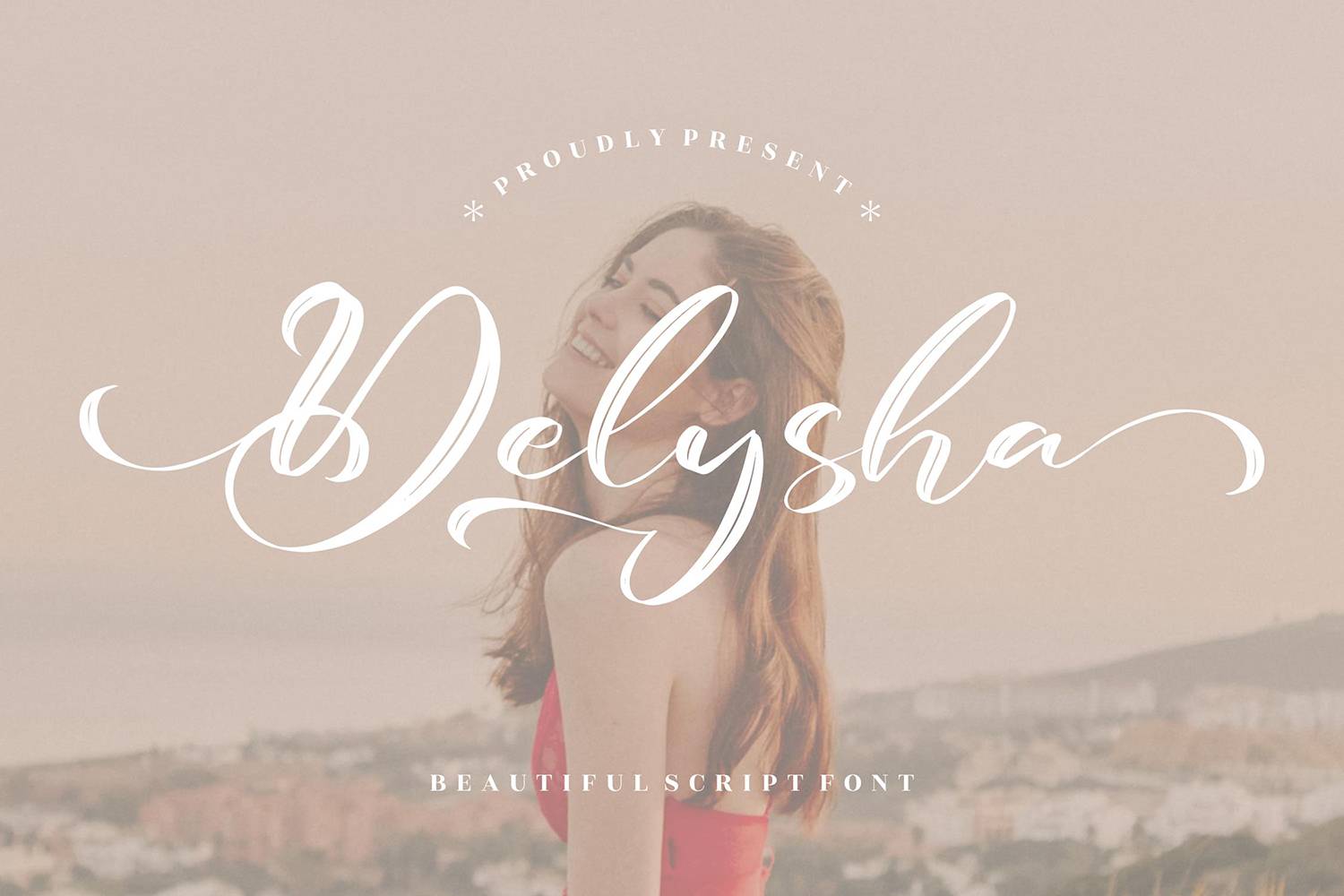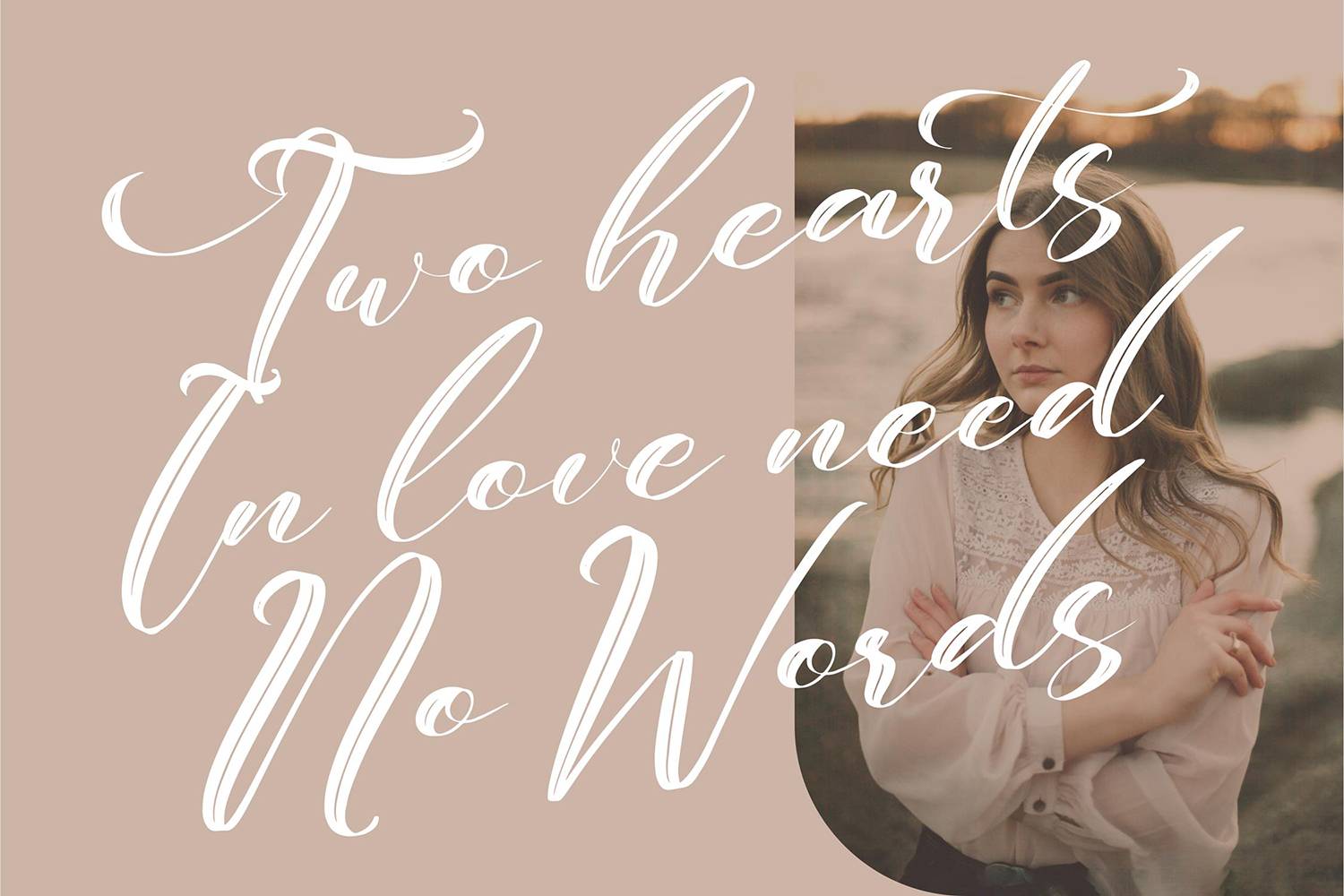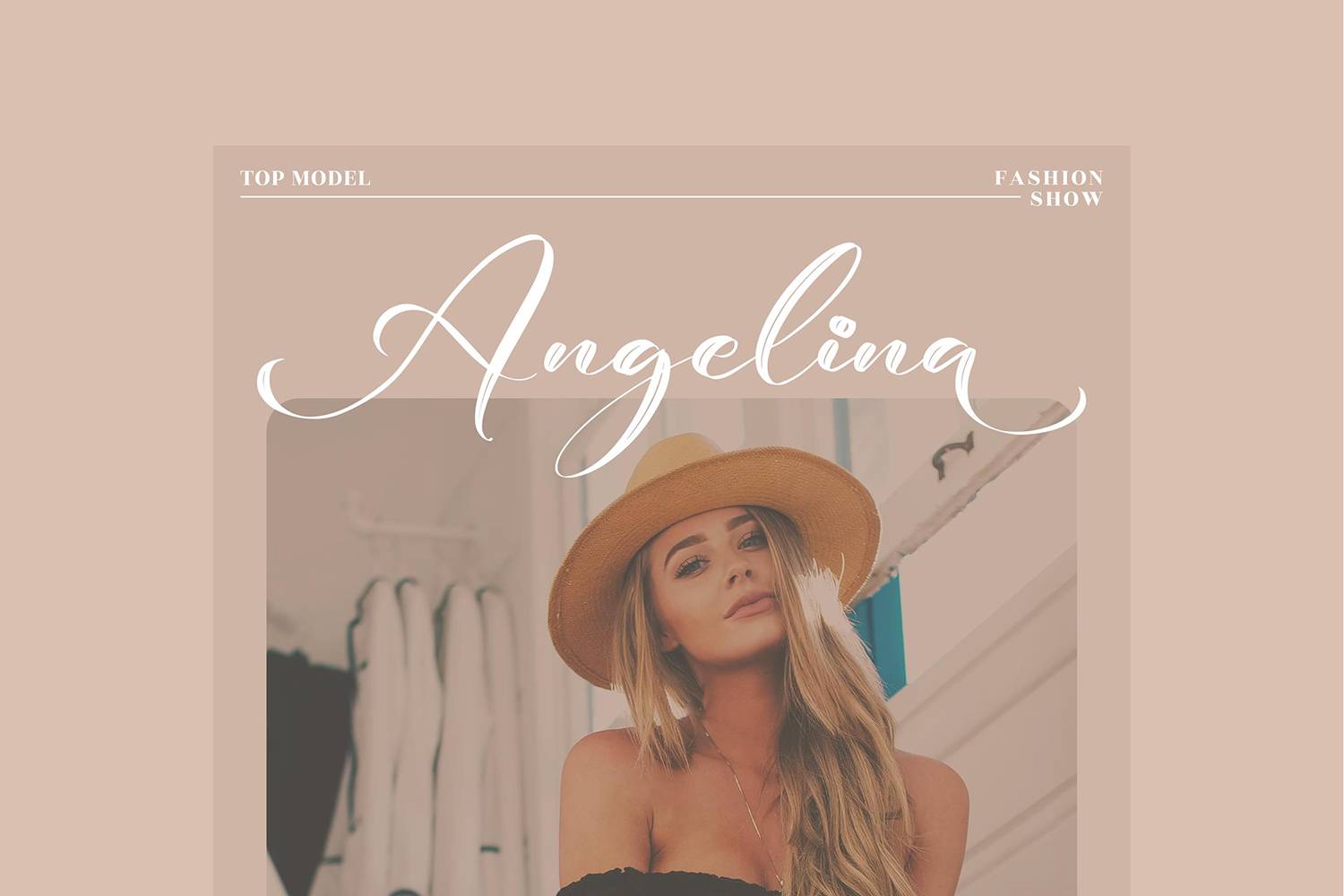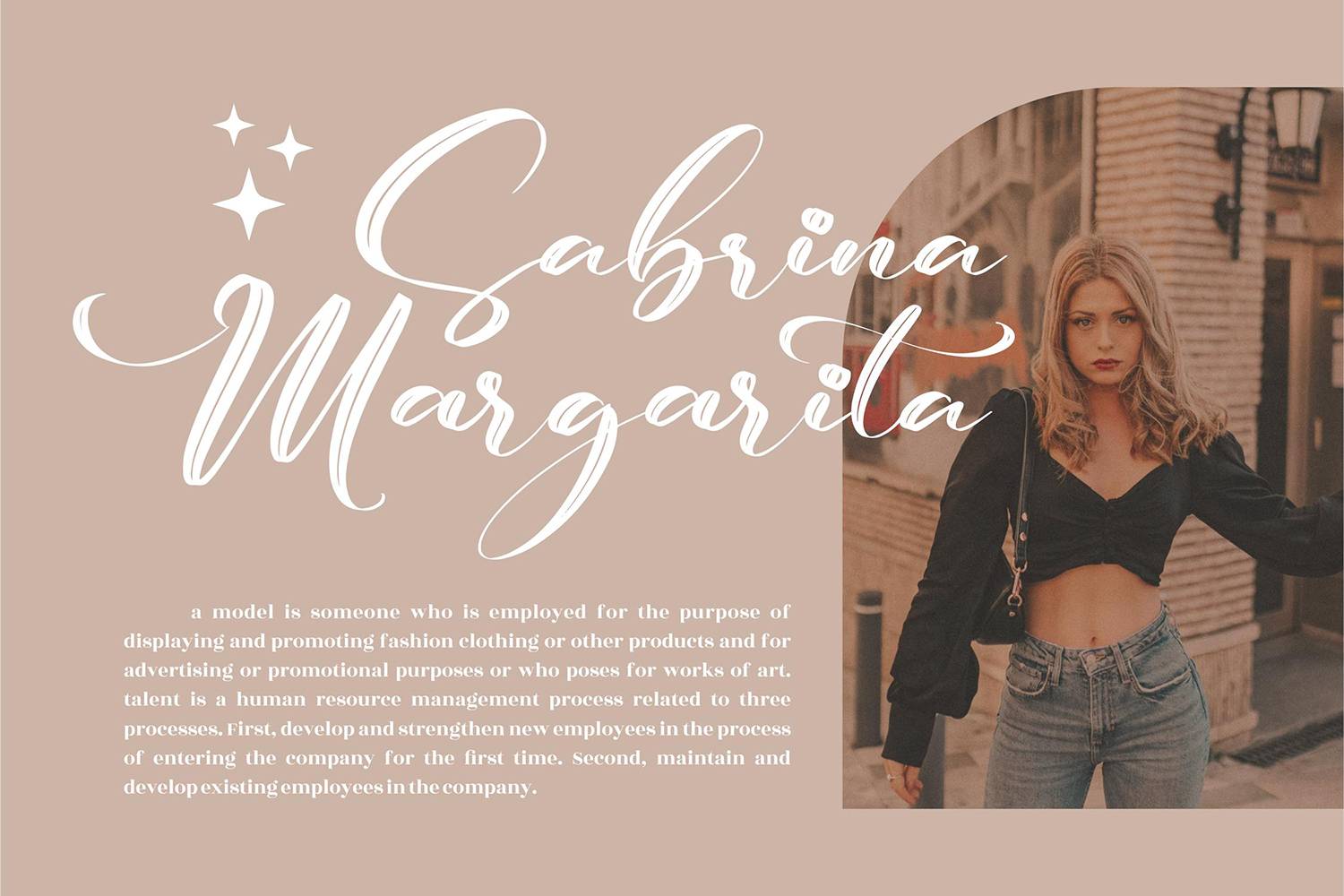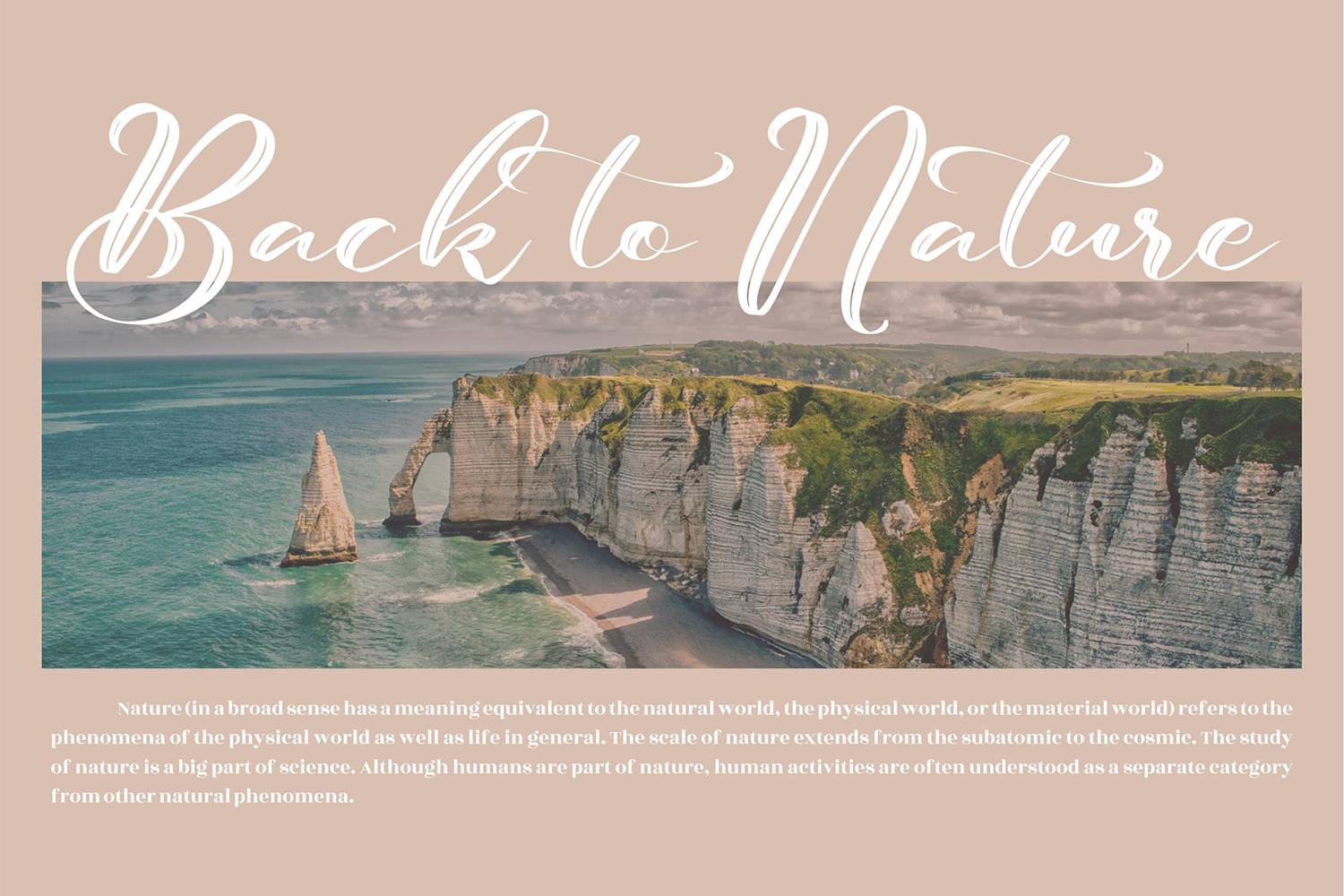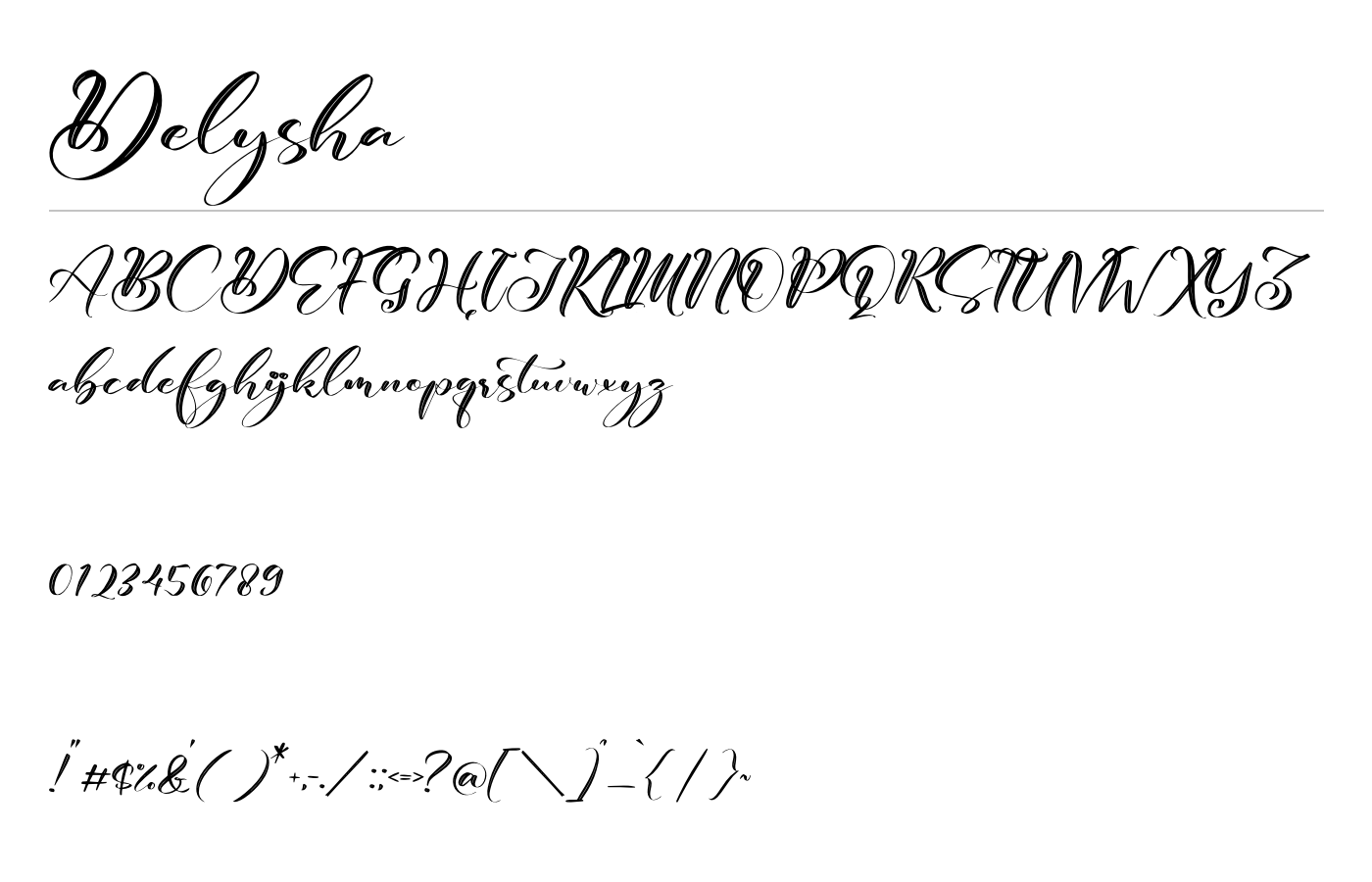
Delysha is an elegant script font characterized by its flowing, hand-drawn style with graceful, high-contrast strokes that create a sophisticated and artistic feel. Its tall x-height, delicate curves, and intricate uppercase swashes make it perfect for luxury branding, invitations, and stylish logos where a refined, feminine touch is desired. This font works beautifully for headlines and decorative text, bringing a sense of elegance and personality to any design.
Delysha Font